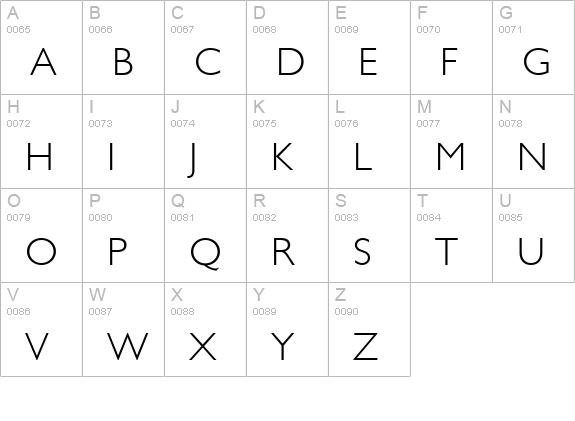
Garrison Light Sans is a refined, elegant variant in the Garrison typeface family \xE2\x80\x94 well suited to elegant body text, refined sub-headings, and luxury branding.
Garrison Light Sans font is a modern and elegant typeface that exudes sophistication and simplicity. With its clean lines and sleek design, this font is perfect for a wide range of projects, from branding and logos to websites and print materials. The light weight of the font adds a touch of sophistication and refinement to any text, making it versatile and easy to read. What makes Garrison Light Sans font even more appealing is that it is available for free download at FontsMarket.com. This means that you can access this high-quality font without any cost, making it an excellent option for designers and creatives looking to enhance their projects without breaking the bank. Don't miss out on the opportunity to elevate your designs with the timeless elegance of Garrison Light Sans font – download it for free today at FontsMarket.com!